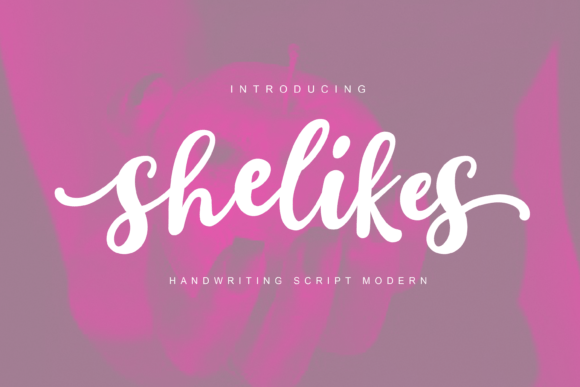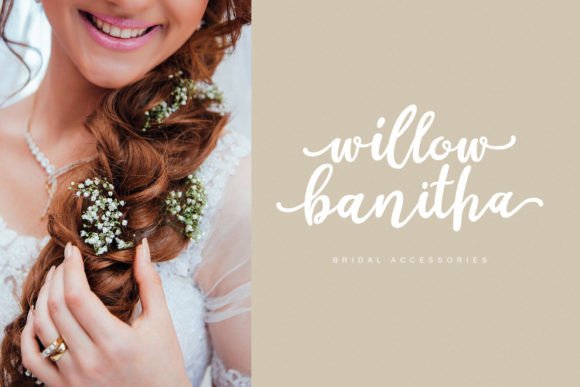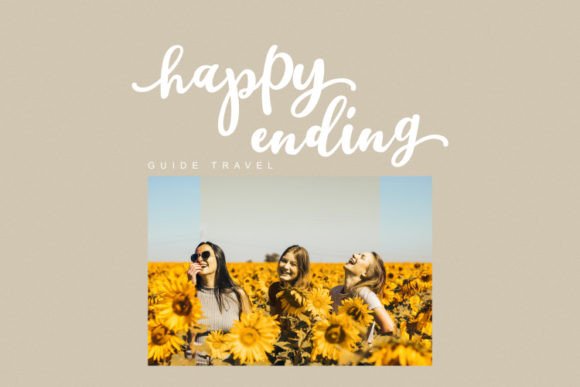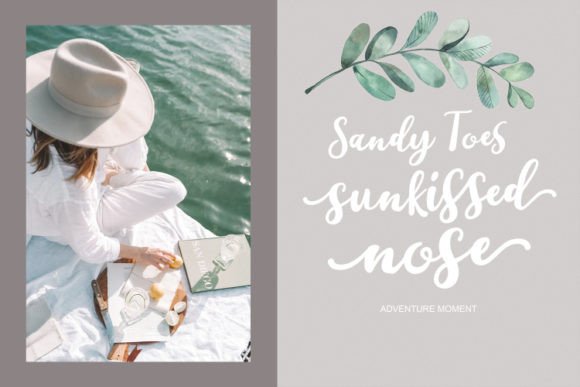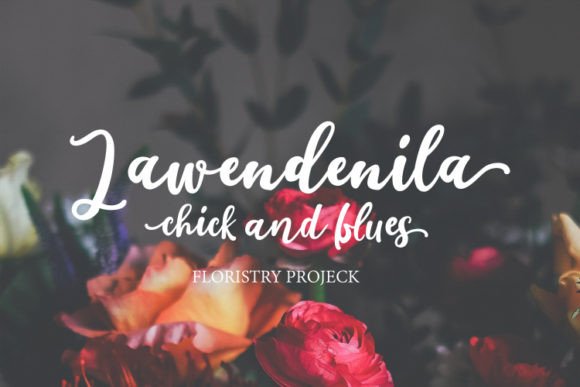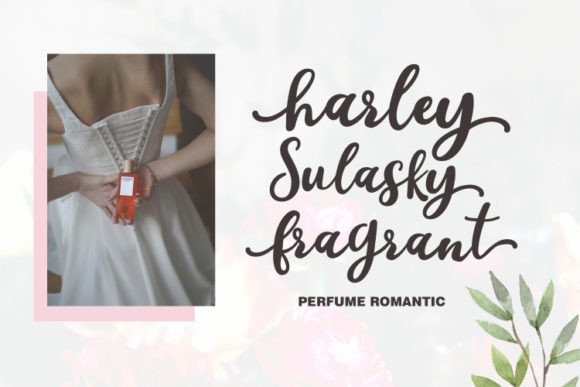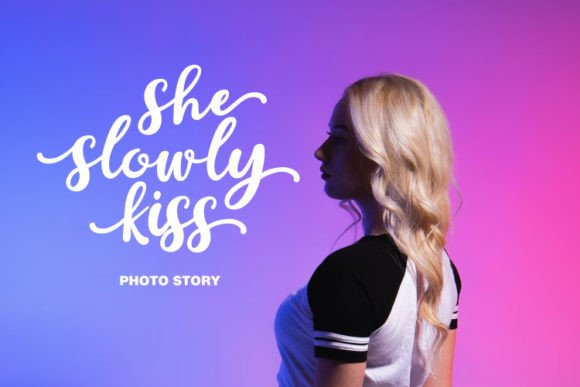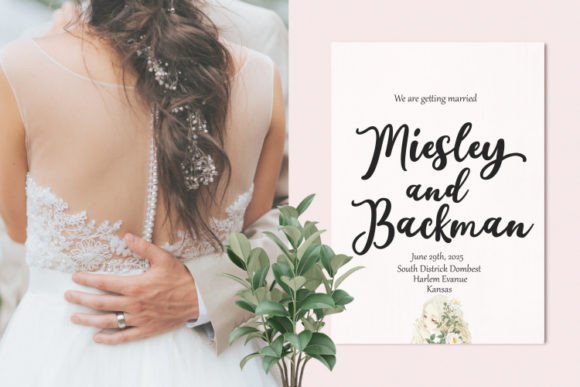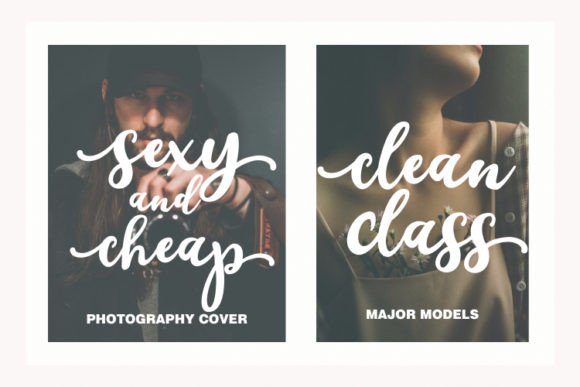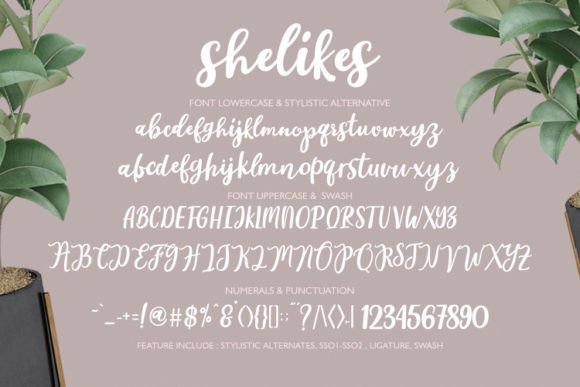
Shelikes Font
About Shelikes Font
Introducing Shelikes, a beautiful and adorable handwritten font designed to bring a unique and stunning impact to your design projects. With its charming and distinct feel, Shelikes adds a touch of luxury that can elevate any creative endeavor.
The beauty of Shelikes lies in its adorable handwritten style, which exudes a sense of charm and elegance. This font is crafted to make a lasting impact, whether you’re working on branding, logos, invitations, social media posts, or any project that calls for a touch of sophistication.
Imagine Shelikes gracing wedding invitations, where its charming script contributes to a romantic and timeless atmosphere. Picture it on branding materials, giving your logo and promotional materials a luxurious and refined touch. Envision it becoming the signature font for your creative projects, adding a level of sophistication that captivates your audience.
Shelikes is not just a font; it’s a design element that brings a unique and stunning quality to your creations. Its impact is felt across various applications, making it a versatile choice for those seeking a font that combines beauty and luxury.